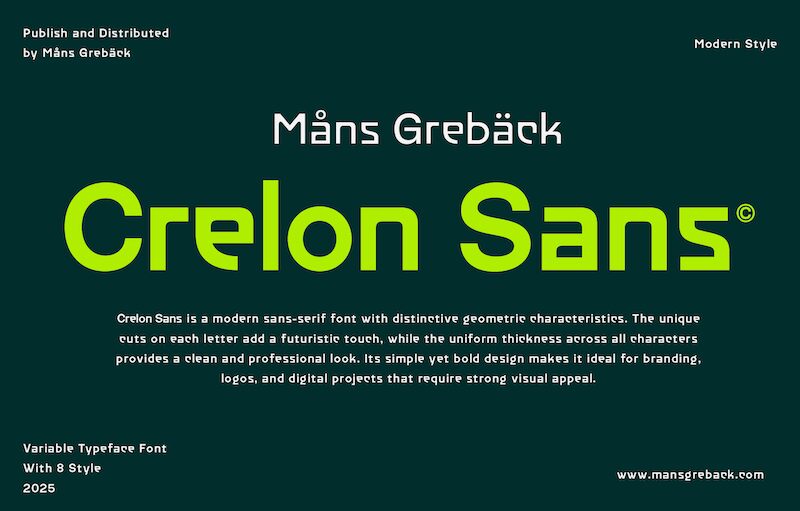
Crelon Sans font, created by Måns Grebäck, is a sturdy and modern sans-serif font built with square shapes and hard corners. This typeface has a sleek aesthetic look with condensed letters suitable for a wide range of purposes. The geometric structure gives it an industrial look and would perfectly suit an architectural or futuristic context.
Use this free modern display font for posters, flyers, branding graphics, business cards, banners, environmental design projects as well as furniture design. Go big in size and make sure the readers experience the best quality of Crelon Sans.